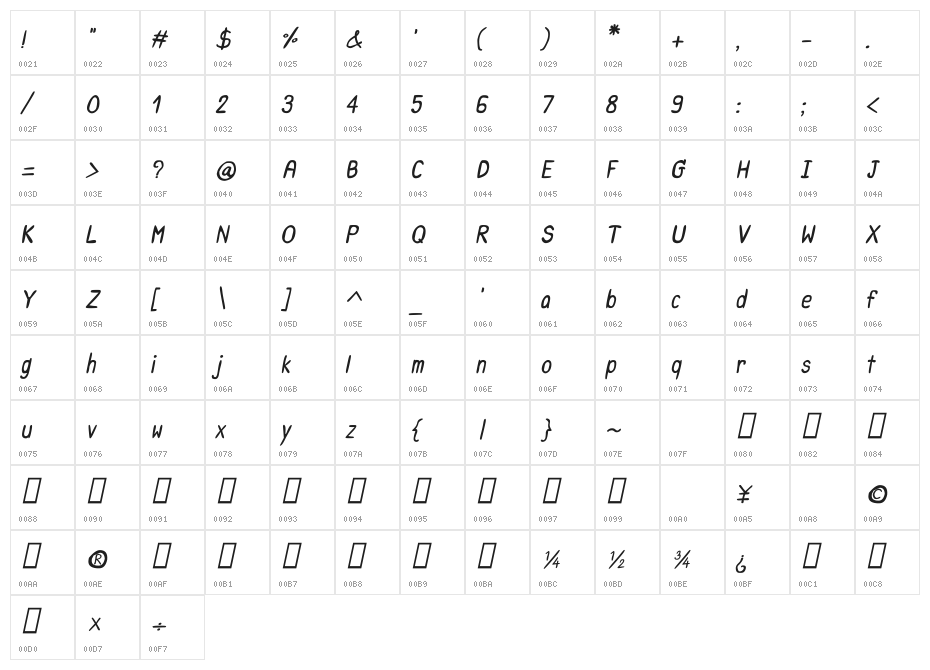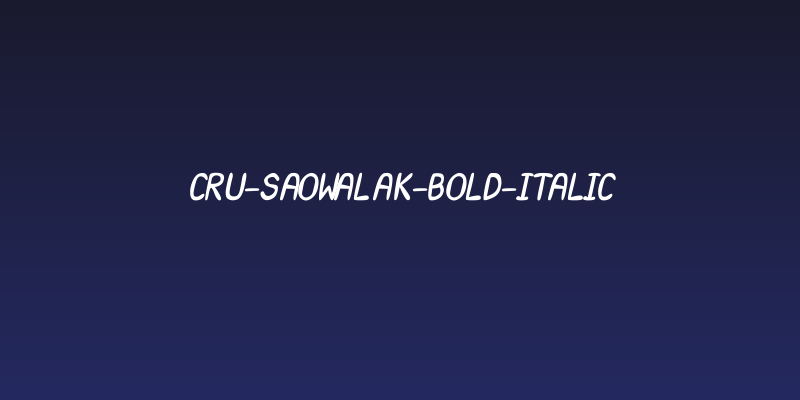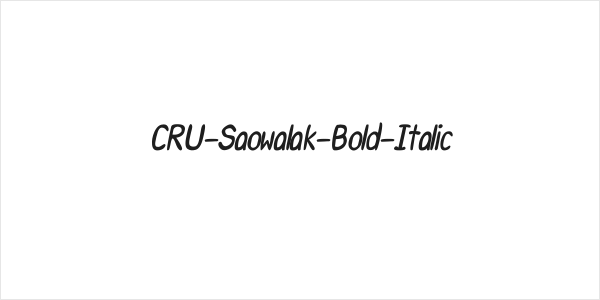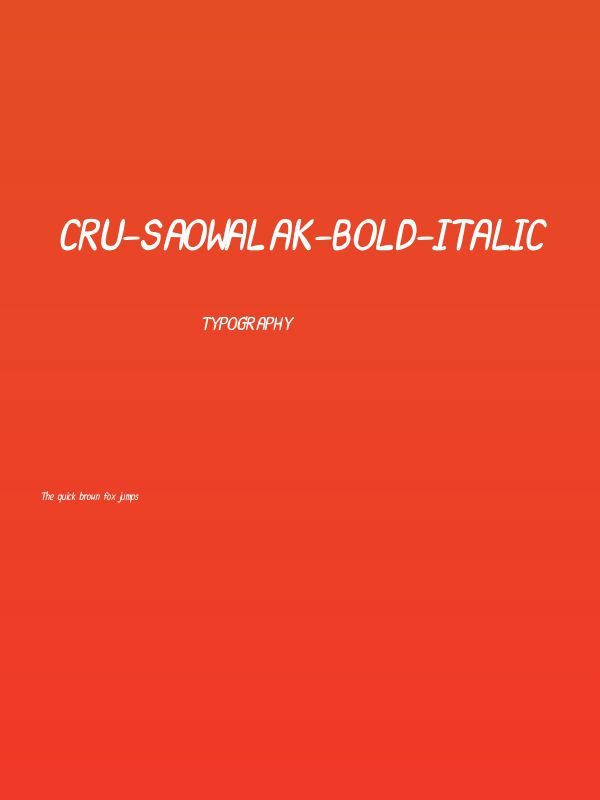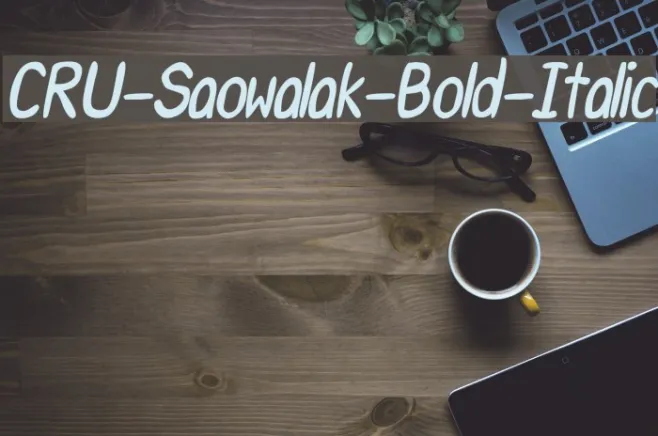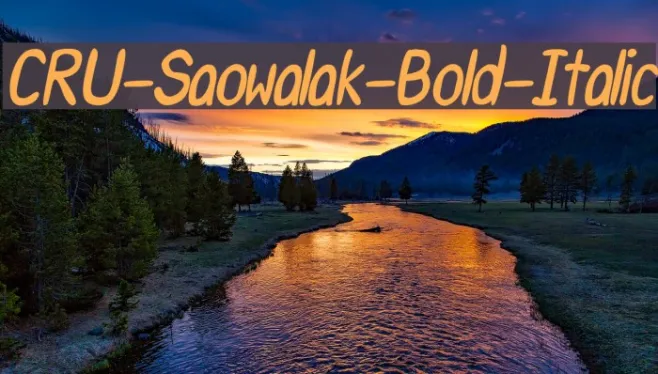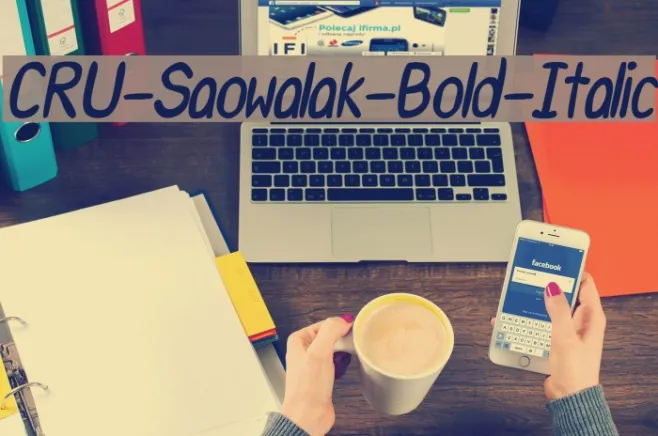
CRU-Saowalak-Bold-Italic Font
CRU-Saowalak-Bold-Italic Description
This font showcases a dynamic and energetic style with its bold and italicized characters. The letters have a smooth, flowing appearance, giving them a handwritten feel. The uppercase and lowercase letters maintain a consistent slant, enhancing the italic effect. The numbers and special characters are designed to match the overall aesthetic, providing a cohesive look. The font's boldness ensures strong visibility, making it suitable for attention-grabbing designs. Its playful yet professional appearance makes it versatile for various creative projects.